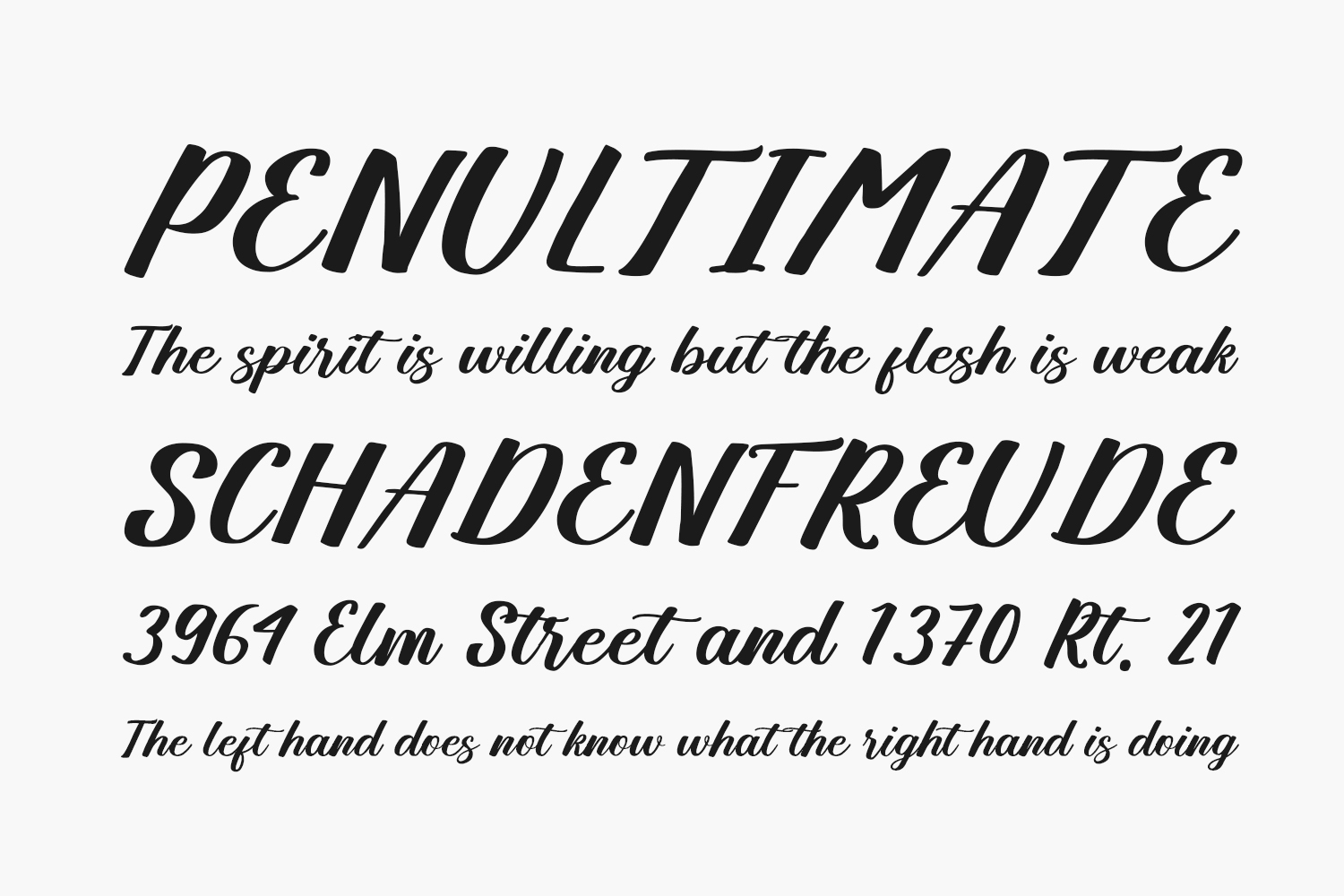
Angellya Free Font is a work of art, each letter crafted with delicate precision and a touch of elegance. As you type, the graceful strokes seem to dance across the page, evoking a sense of serenity and refinement. The font is a true embodiment of beauty and grace, making it the perfect choice for any project that requires a touch of sophistication and class.